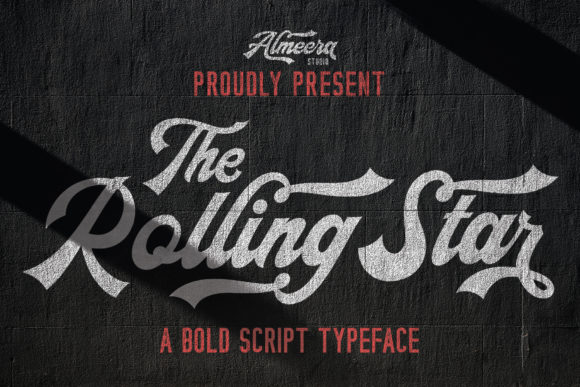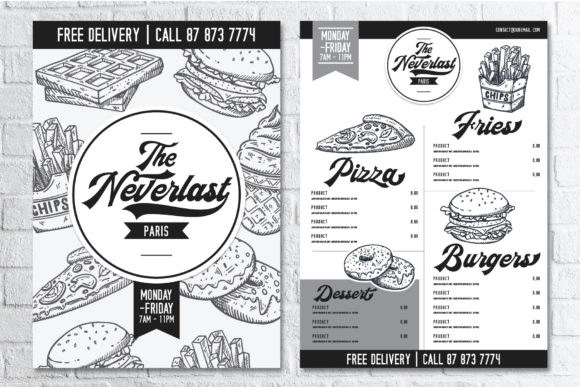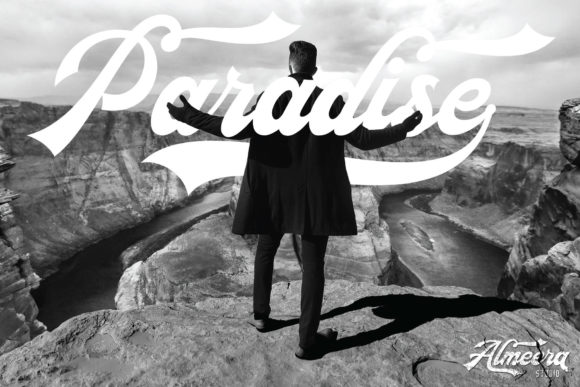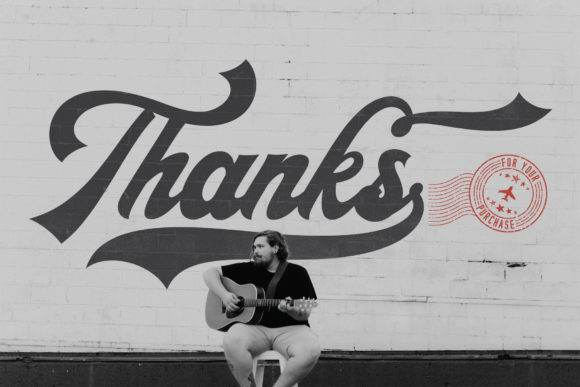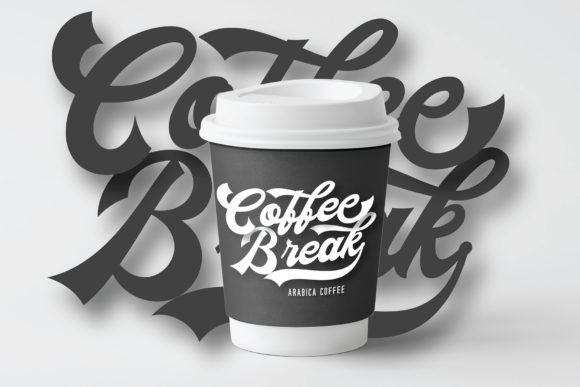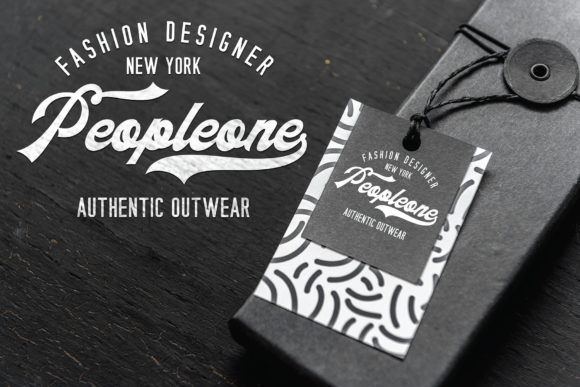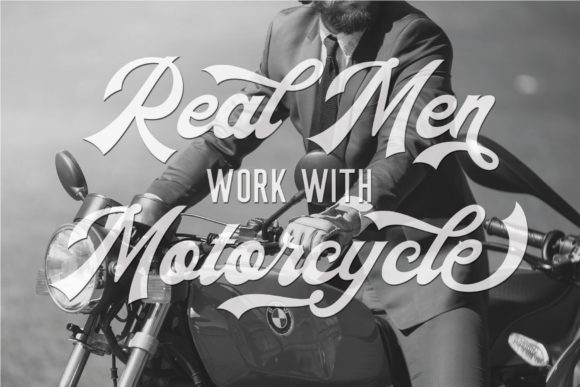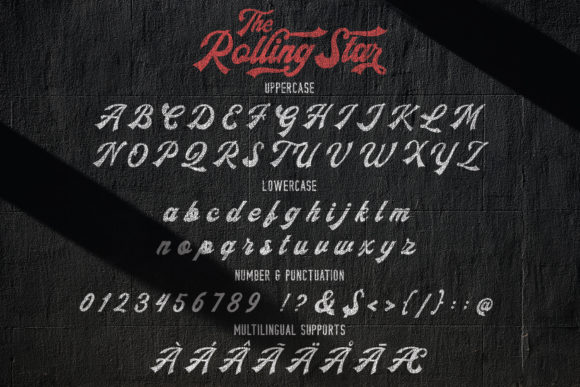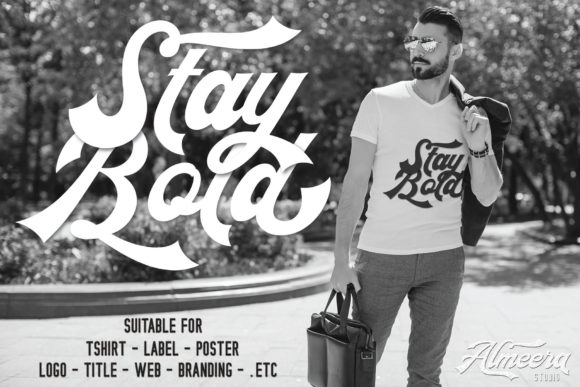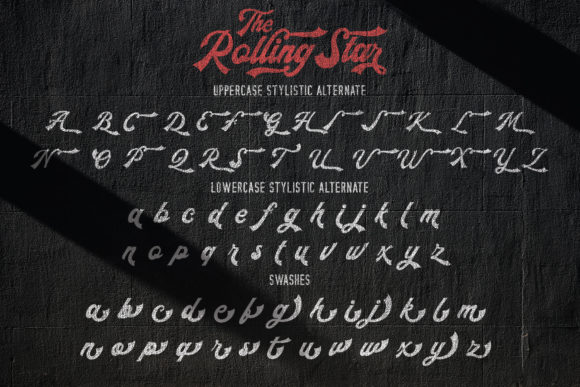
The Rollingstar Font
About The Rollingstar Font
The Rollingstar is a bold script with a modern look. It provides a dynamic and powerful design language, perfectly suited for making any design stand out.